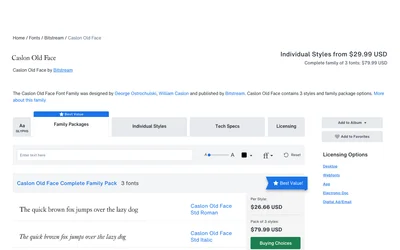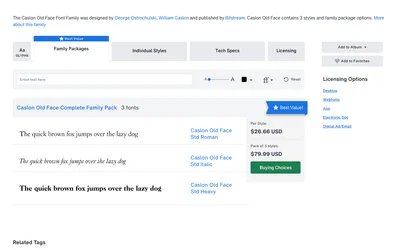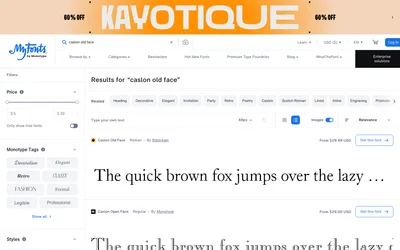
About Caslon Old Face
- Foundry
- Stephenson Blake
- Classification
- serif
- Style
- classic
Caslon Old Face is Stephenson Blake's version of the Caslon typeface, preserving the warm, readable character of William Caslon I's original 18th-century designs. As Britain's last major metal type foundry, Stephenson Blake maintained an authentic connection to the metal type tradition that informed these letterforms.
History and Design
William Caslon I established his type foundry in London in 1720, creating typefaces that became the standard for English-language printing for over a century. His designs were celebrated for their readable warmth and practical utility, embodying a distinctly English approach to type that favored comfort over Continental formality.
Stephenson Blake's Caslon Old Face preserves the character of these original designs. The designation "Old Face" distinguishes this traditional interpretation from later modernized Caslons, maintaining the irregular charm, varied proportions, and warm texture that define the original Caslon style. The letterforms retain the slightly inconsistent character of hand-cut metal type, which paradoxically contributes to comfortable reading by providing natural rhythm variation.
Technical Characteristics
- Authentic Caslon character: Preserves the warmth and irregularity of original metal types
- Moderate contrast: Balanced thick-thin variation suited to extended text reading
- Warm terminals: Soft, rounded stroke endings that contribute to friendly character
- English proportions: Wide, comfortable letterforms typical of the Caslon tradition
- Old-style figures: Traditional non-lining numerals for text integration
Use Cases
Caslon Old Face suits traditional and heritage-conscious applications:
- Book typography: The classic choice for English-language literary publishing
- Heritage branding: Authentic traditional character for established institutions
- Fine printing: Letterpress and high-quality offset printing
- Legal and government documents: Traditional authority for formal communication
- Museum and cultural publications: Historical connection for arts institutions